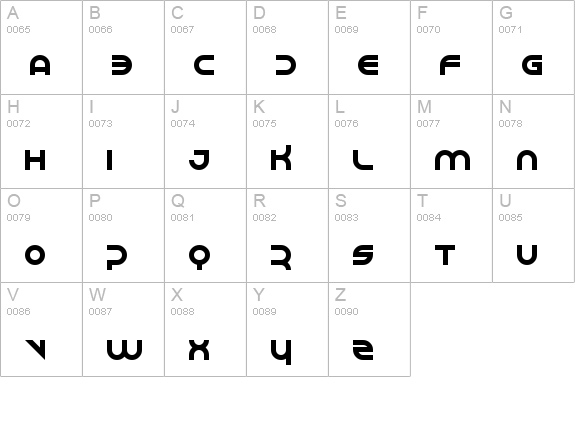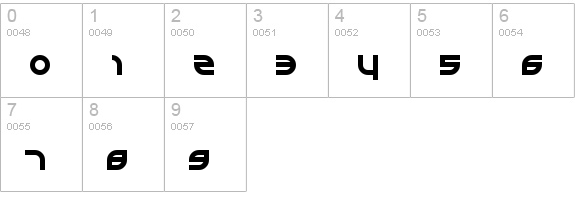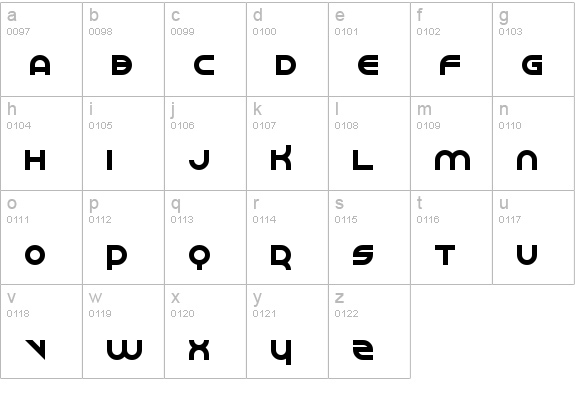
Perspire Regular is the standard, neutral variant in the Perspire typeface family \xE2\x80\x94 well suited to general body text, paragraphs, and standard typographic work.
Perspire Regular is a sleek and modern font that exudes sophistication and versatility. With its clean lines and contemporary appeal, this font is perfect for a wide range of design projects, from branding to editorial design. The simplicity of the letterforms combined with the subtle variations in stroke width give Perspire Regular a unique and stylish look that is sure to make your designs stand out. What's even better is that Perspire Regular is available for free download at FontsMarket.com. This means that you can easily access this stylish font and use it in your projects without any cost. Whether you're working on a personal project or a professional design, Perspire Regular is a fantastic choice that will elevate your work to the next level. Download it today and see for yourself the impact this font can have on your designs.